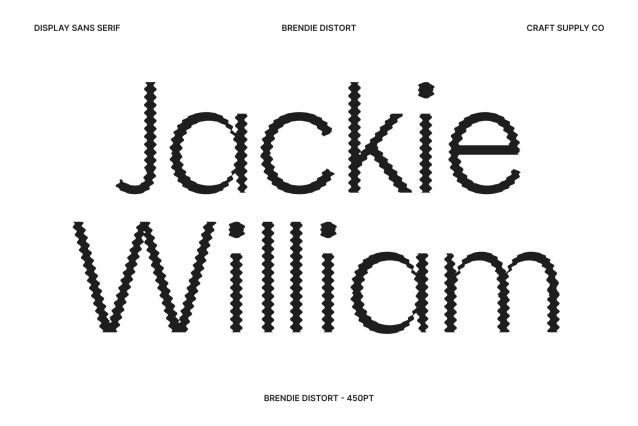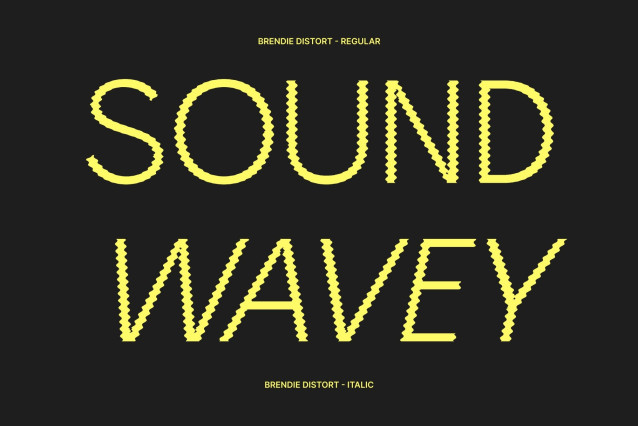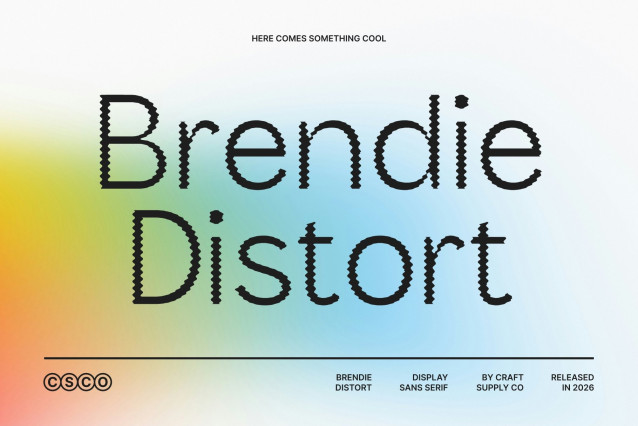
Brendie Distort – Modern Font: Clean Professionalism with an Experimental Melt
Modern Sans Serif with Distorted Character
This Modern Font reimagines a clean corporate sans serif with a subtle melting distortion. Its sleek, professional structure remains intact, while softened edges introduce an artistic and contemporary personality. This fusion creates a typeface that feels polished, modern, and visually distinctive.
Melting Details for Visual Interest
The distort style gently reshapes the edges of each letter, creating a fluid, organic effect that adds movement and uniqueness. This expressive treatment transforms the minimalist design into something more dynamic while preserving clarity and balance.